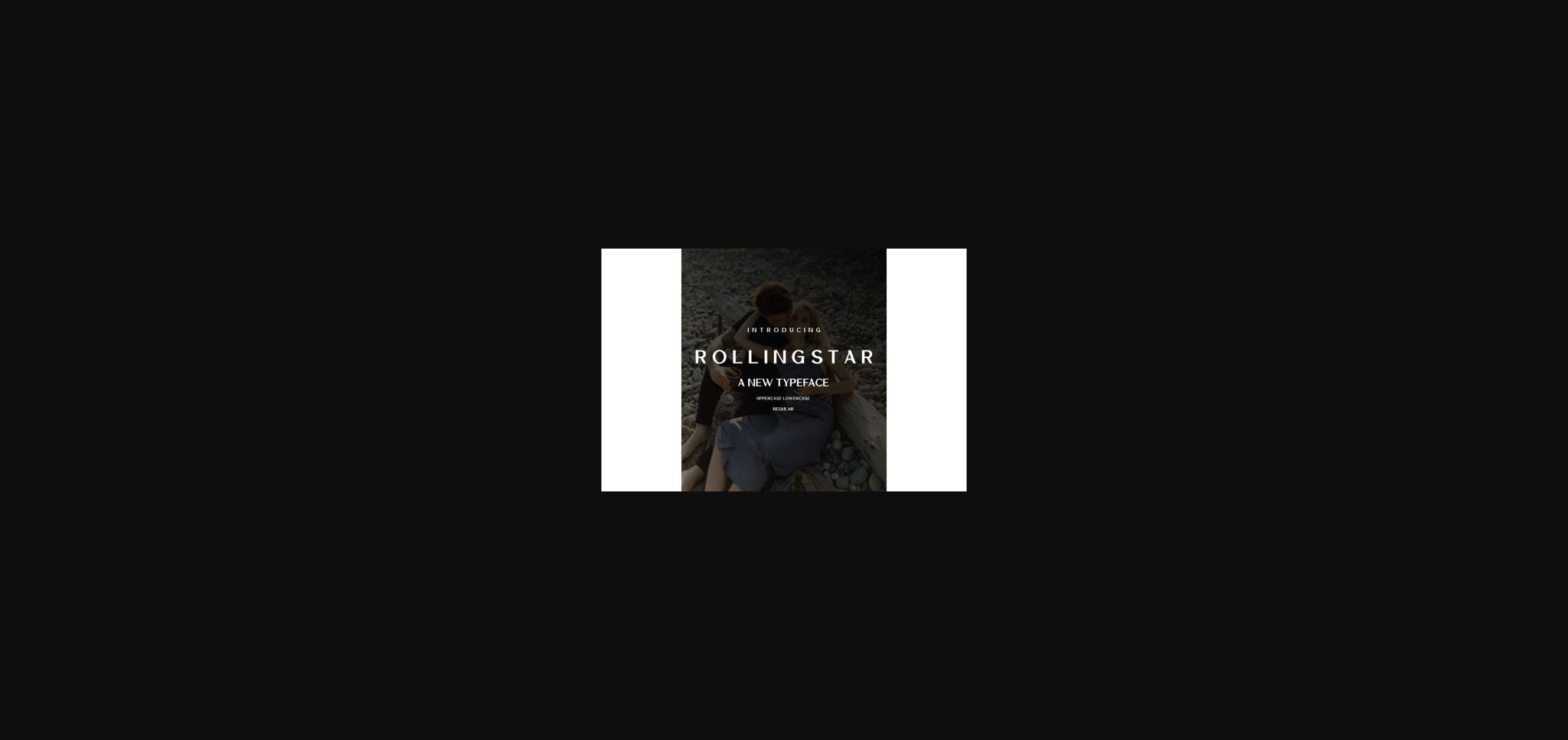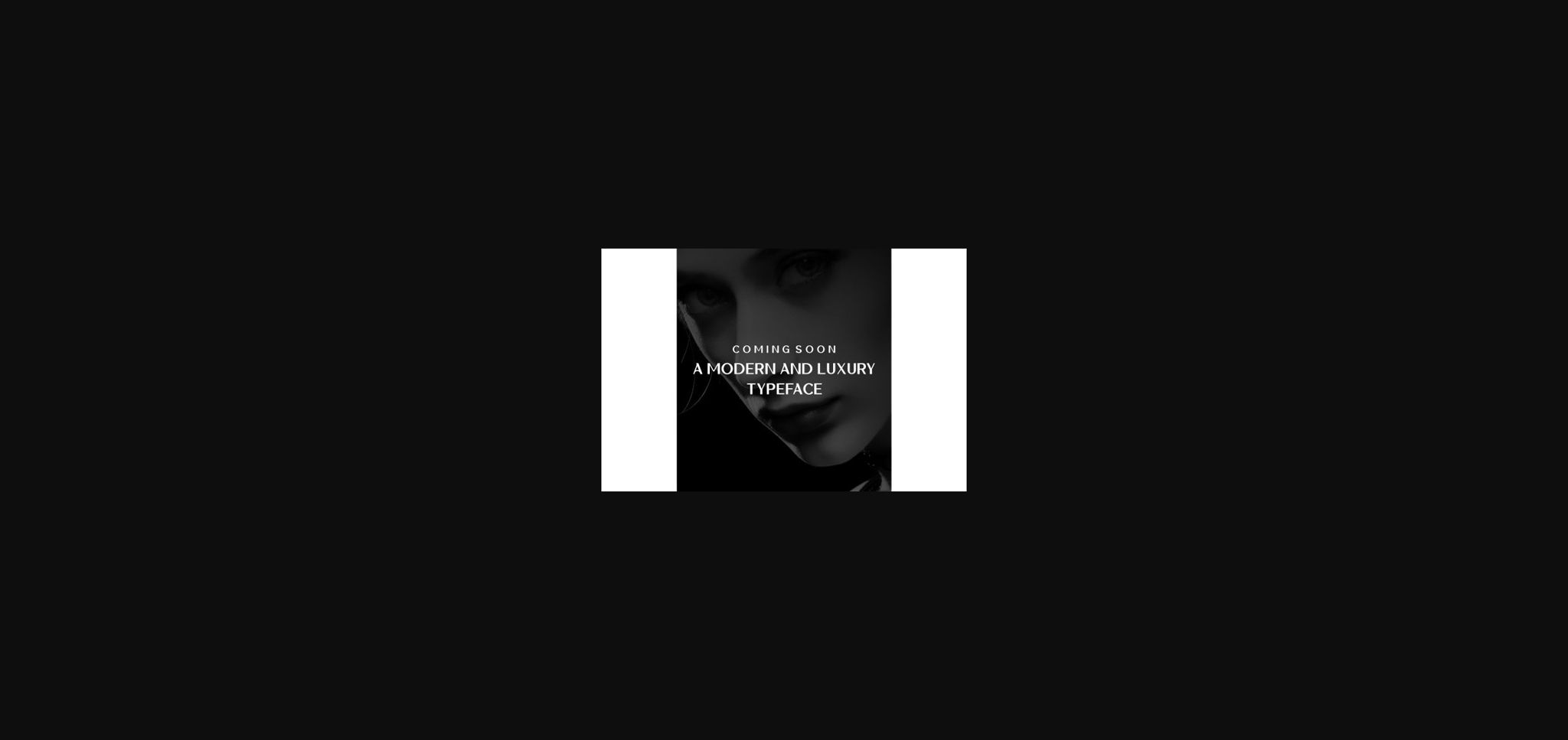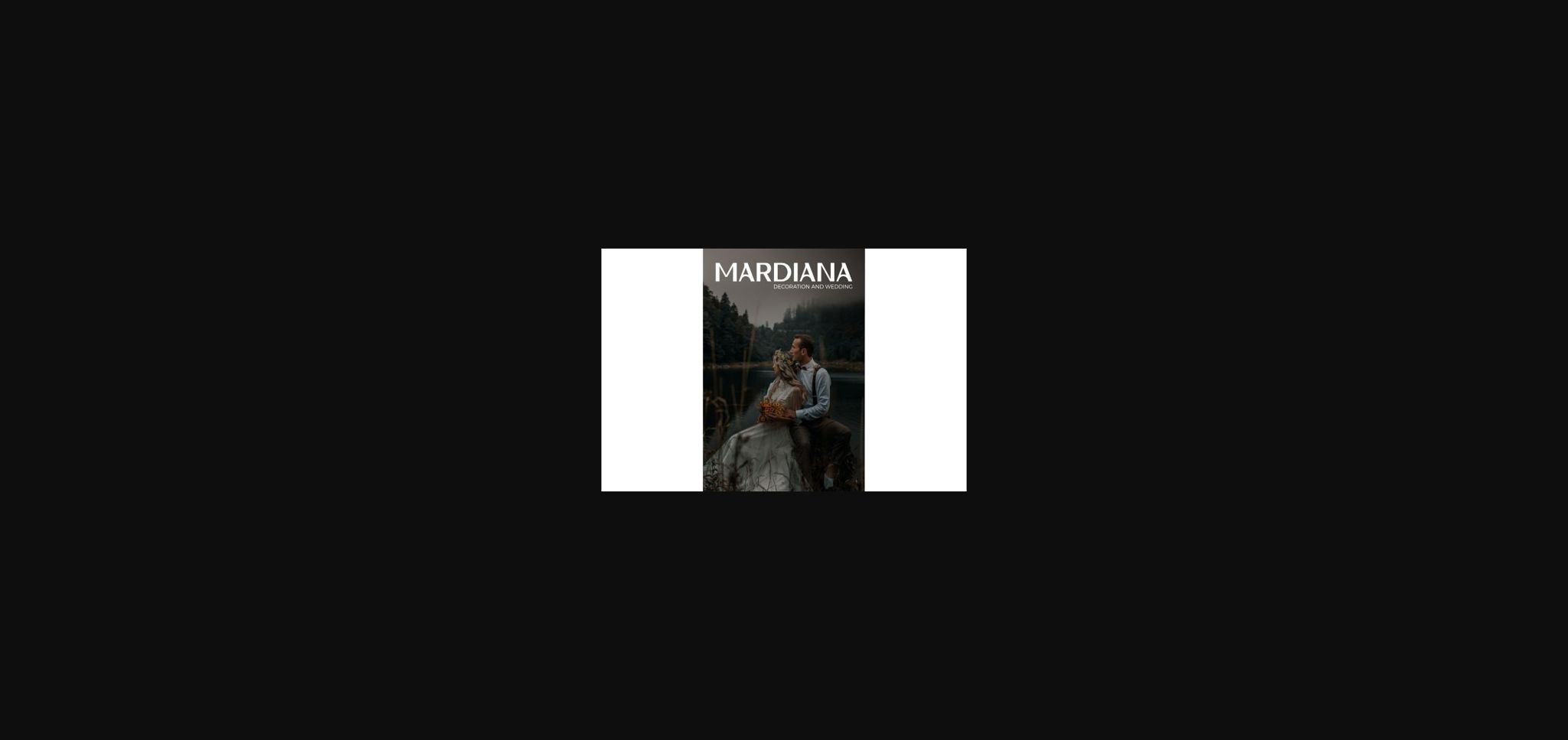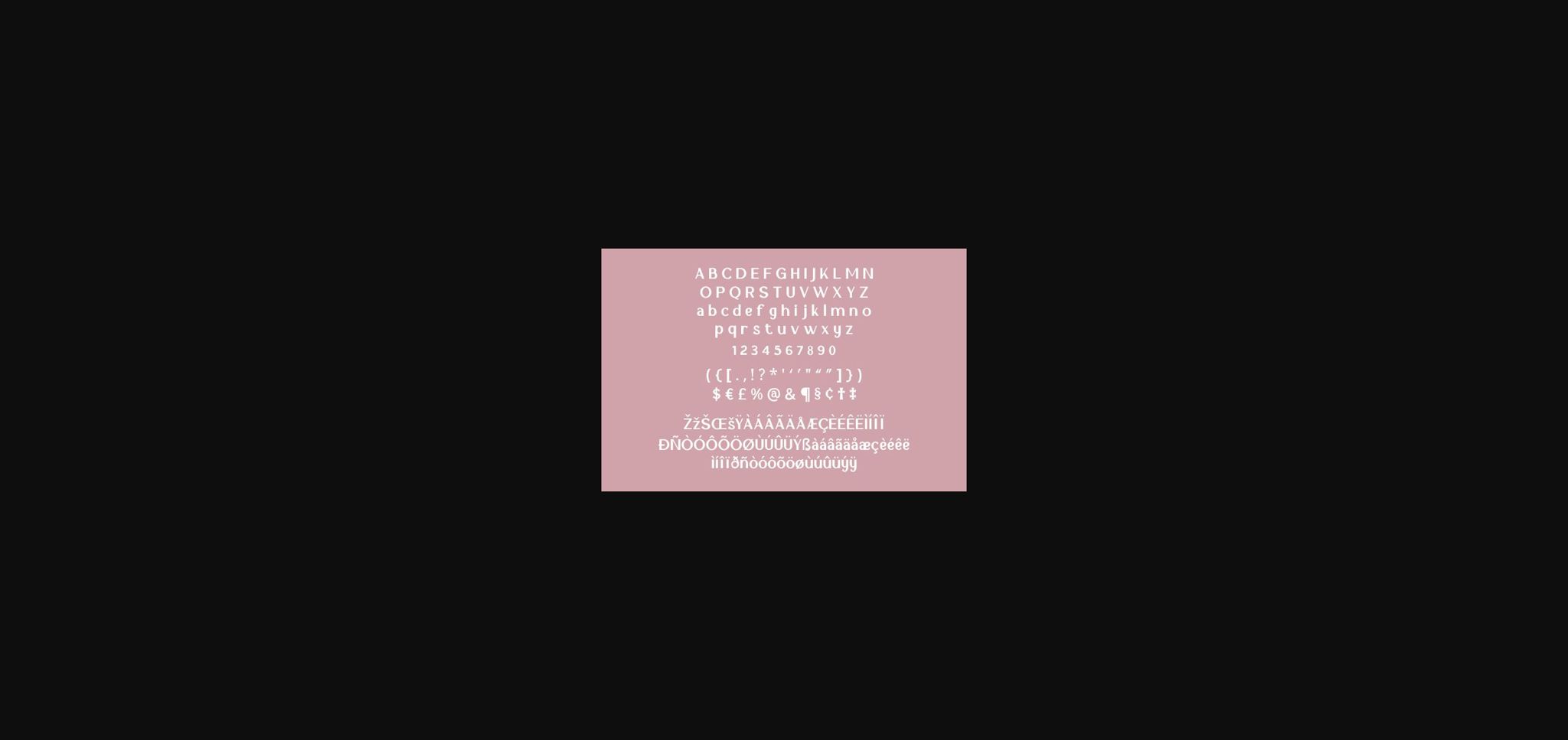
HomeSans Serif FontsRollingstar Font Sans Serif Fonts Rollingstar Font FacebookXPinterestWhatsApp 1 of 6 ... Rollingstar Font Poster 2... Rollingstar Font Poster 3... Rollingstar Font Poster 4... Rollingstar Font Poster 5... Rollingstar Font Poster 6... About Rollingstar Font Rollingstar is an authentic sans serif font. It can easily be matched to an incredibly large set of projects, so add it to your creative ideas and notice how it makes them stand out! DOWNLOAD NOW People also explored Banana Juice Font Larisa Font Austhedik Font Bedmiwoc Font Vintage Art Font Voltura Font Fox Veteran Tomorrows Font Droppis Exo Font 326 0 TagsRollingstar Font Previous articleBotfon FontNext articleRobeton Font LEAVE A REPLY Cancel reply Comment: Please enter your comment! Name:* Please enter your name here Email:* You have entered an incorrect email address! Please enter your email address here Website: Save my name, email, and website in this browser for the next time I comment. Personal Use Free Hollster Personal Use Free Read more about this font Rosebirth Personal Use Free Read more about this font Dream Personal Use Free Read more about this font Crack Man Personal Use Free Read more about this font BLOG Fonts That Capture the Spirit of New York City New York City is more than just a place—it’s an experience, a rhythm, a visual language... Elegant Wedding Invitation Fonts – Handwritten & Script Fonts Free Fonts Risk: Why Free Fonts Can Be Dangerous for Designers Modern Sans-Serif Fonts That Brands Love in 2025